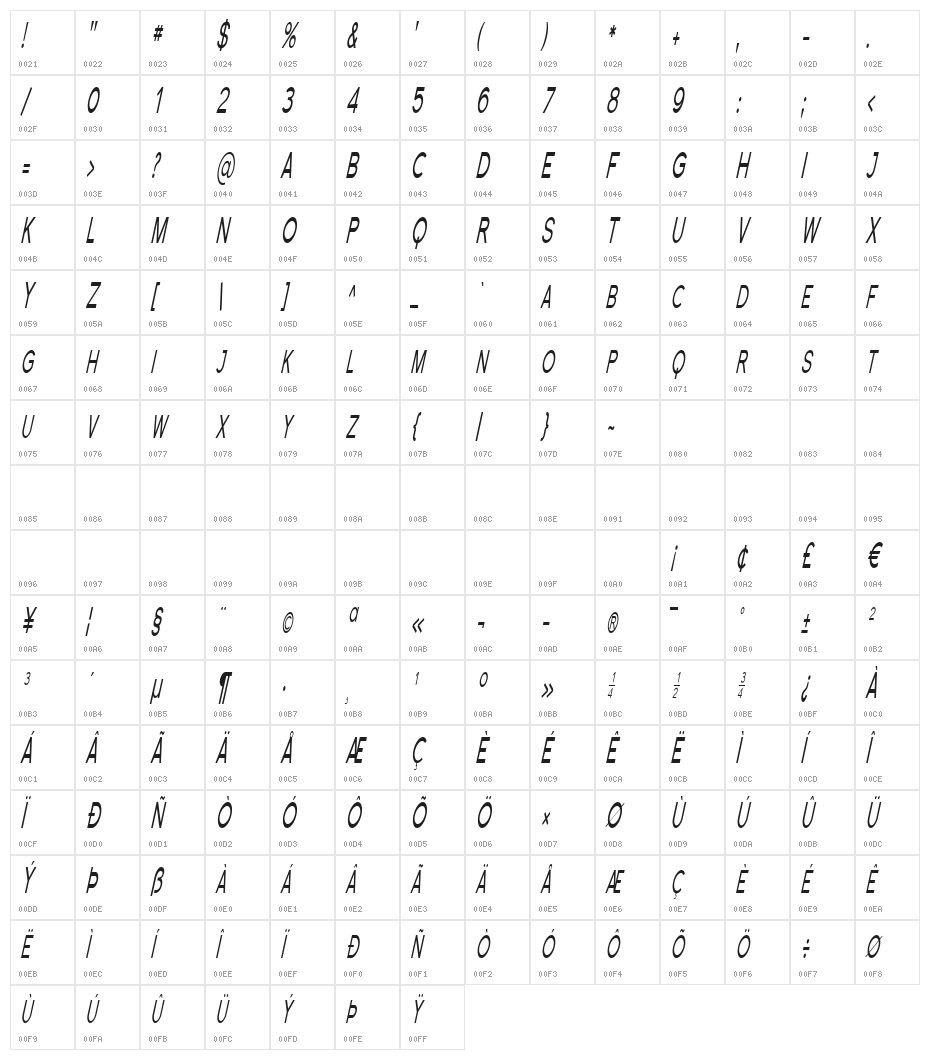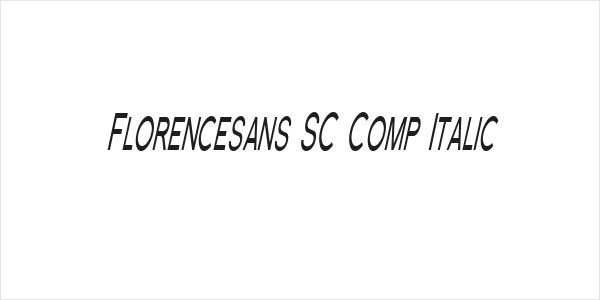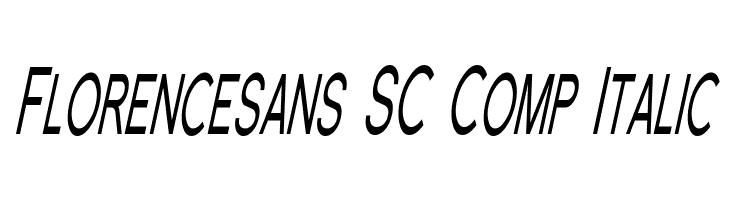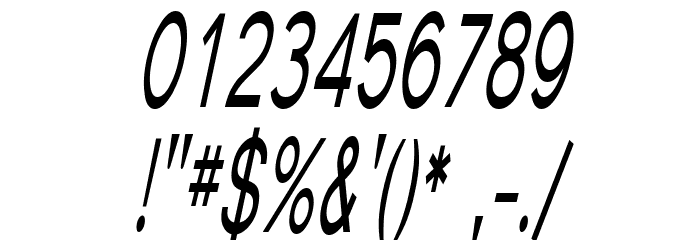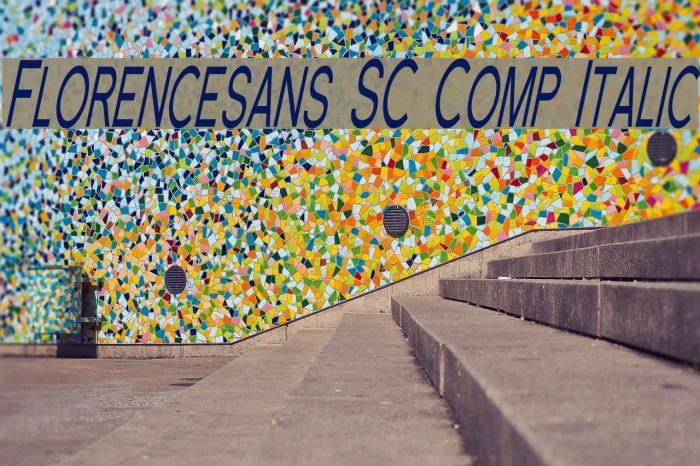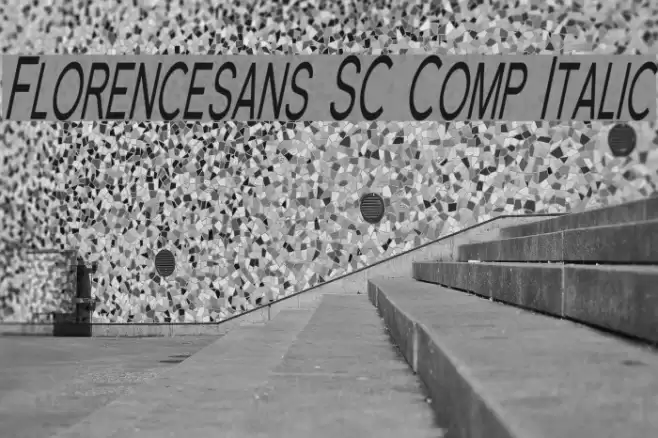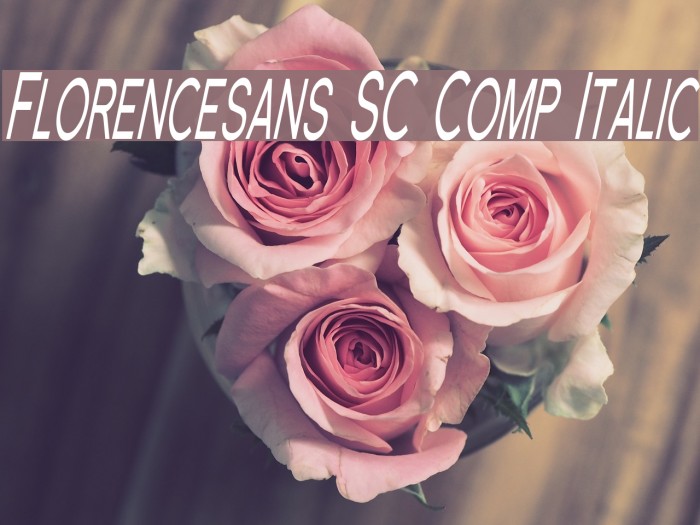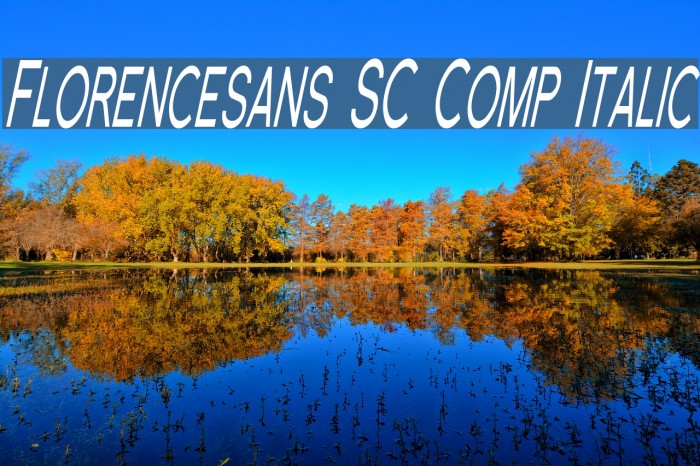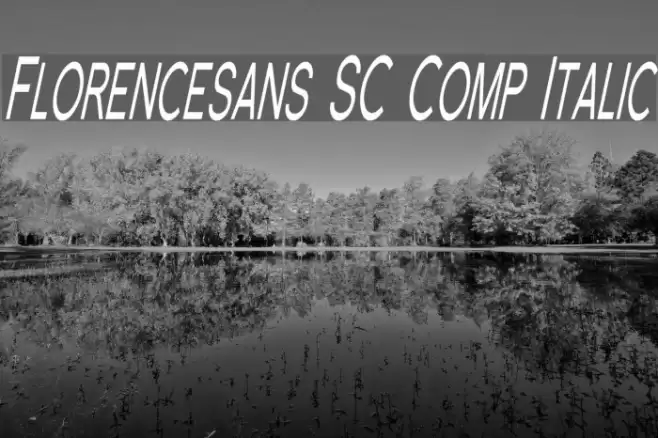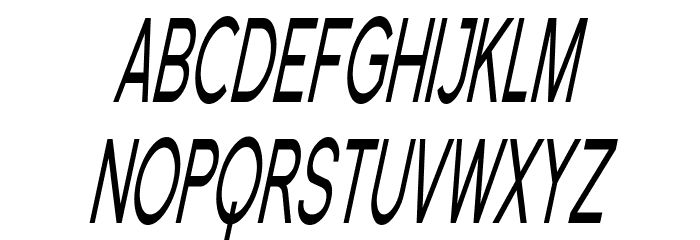
Florencesans SC Comp Italic Font
Florencesans SC Comp Italic Description
This font features a sleek, modern design with a distinct italic slant, giving it a dynamic and forward-moving appearance. The characters are condensed, allowing for efficient use of space while maintaining readability. The strokes are consistent in width, providing a uniform look across all characters. The font includes a full set of uppercase and lowercase letters, numbers, and a variety of special characters, making it versatile for different applications. Its clean lines and contemporary style make it suitable for a range of design projects.
| Use Case | Headlines, Logos, Advertising |
| Proposed Projects | Ideal for branding, advertising, and editorial design where a modern and dynamic look is desired. |